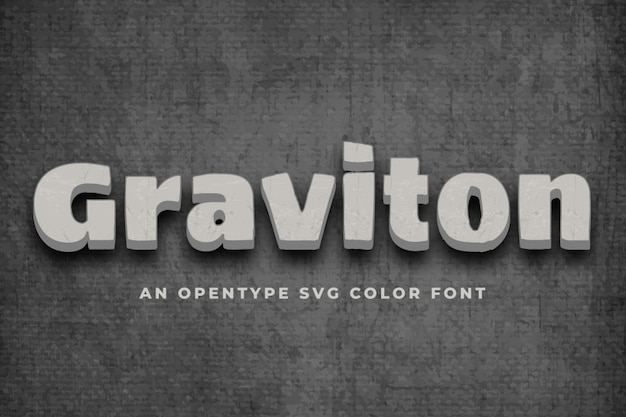
It is a captivating font that defies gravity with its 3D, floating stone-like appearance. Each letter seems to hang weightlessly in space, defying the laws of physics. This typeface exudes a sense of mystery and wonder, making it perfect for designs that need to convey a sense of otherworldly beauty. "Graviton" adds a touch of the surreal to your projects, making your text seem as if it's carved from ethereal stone and suspended in mid-air. If you want your designs to defy gravity and captivate your audience, "Graviton" is the font to choose.